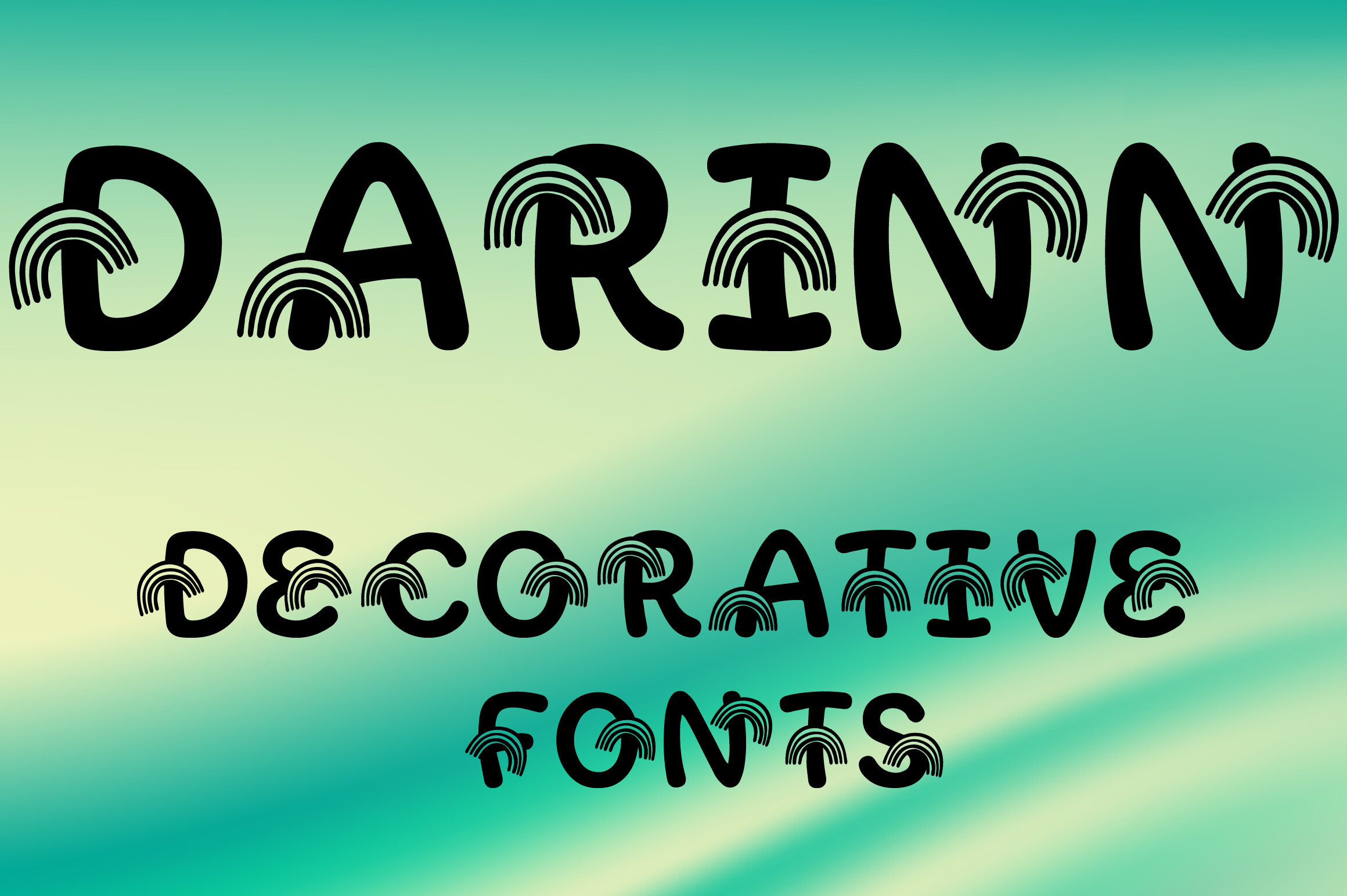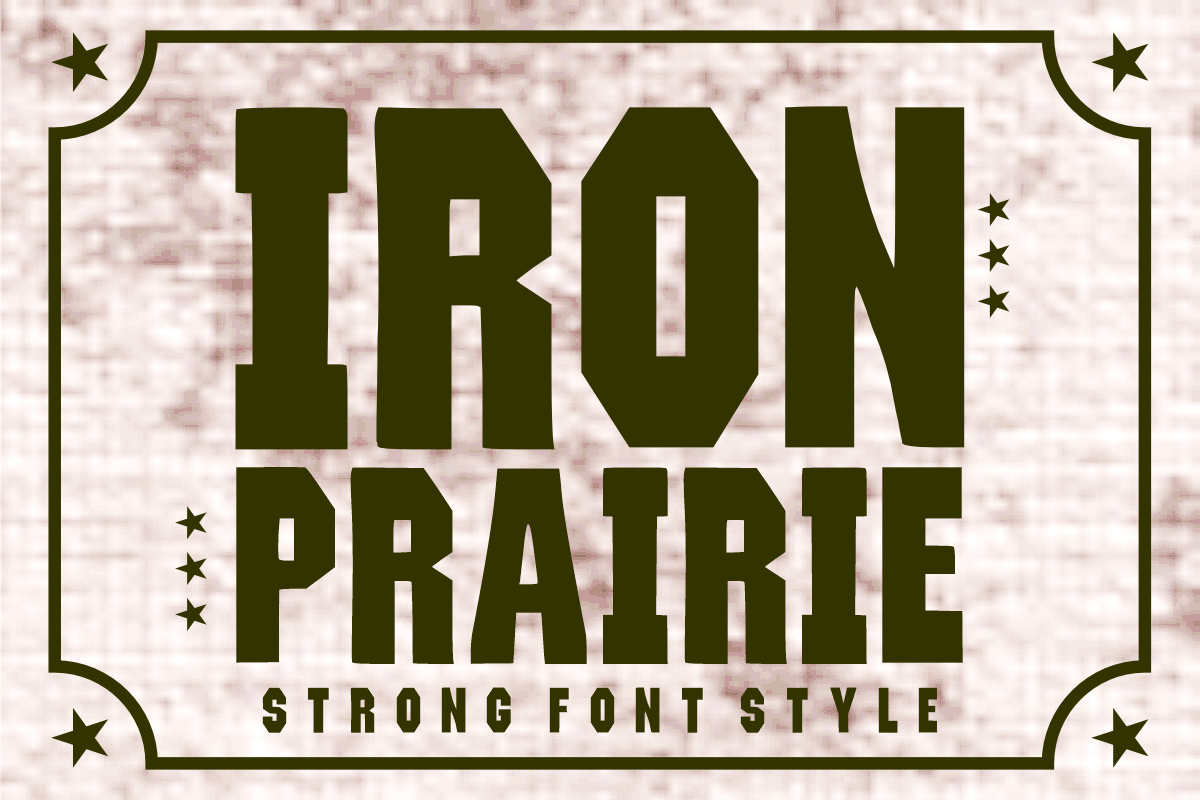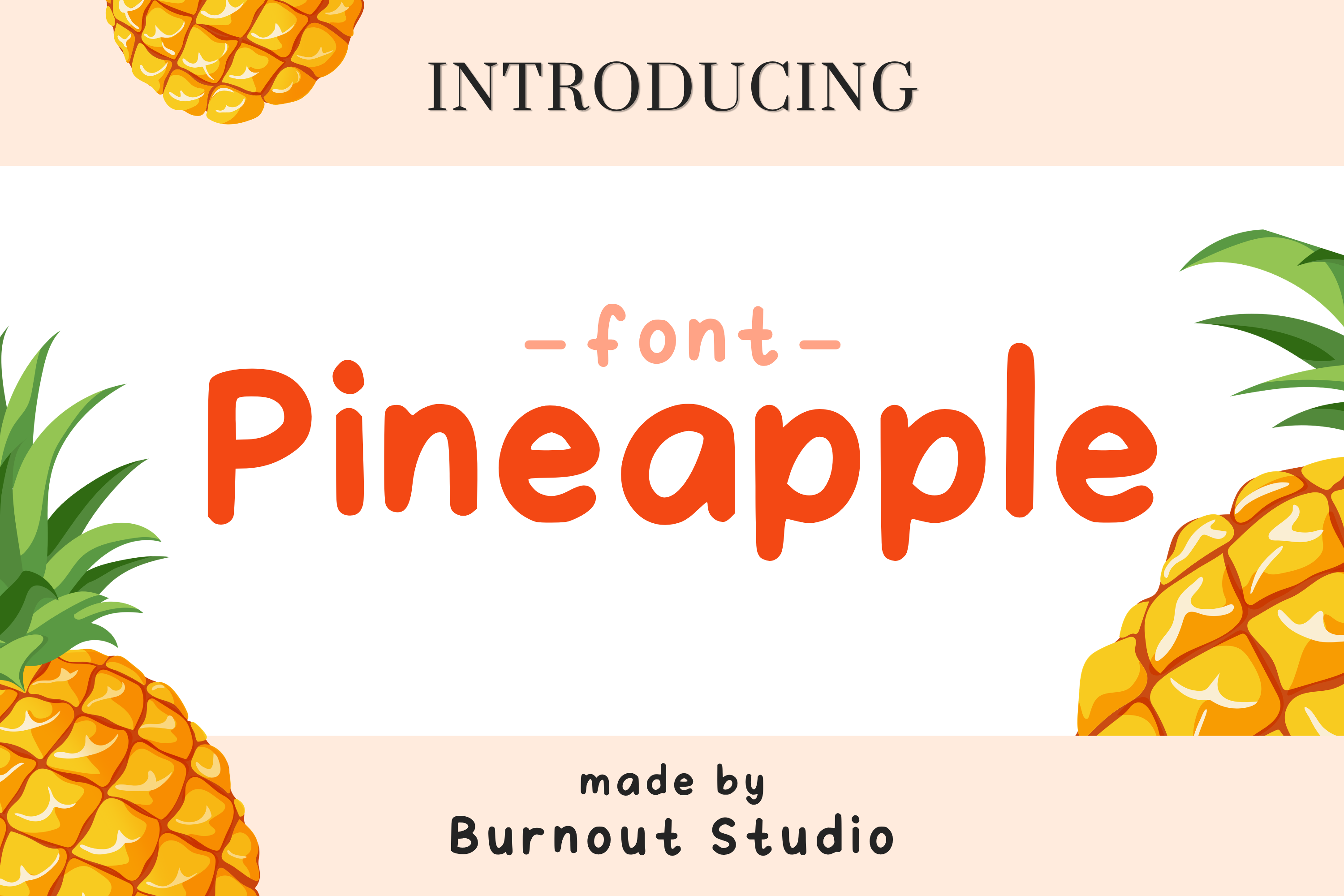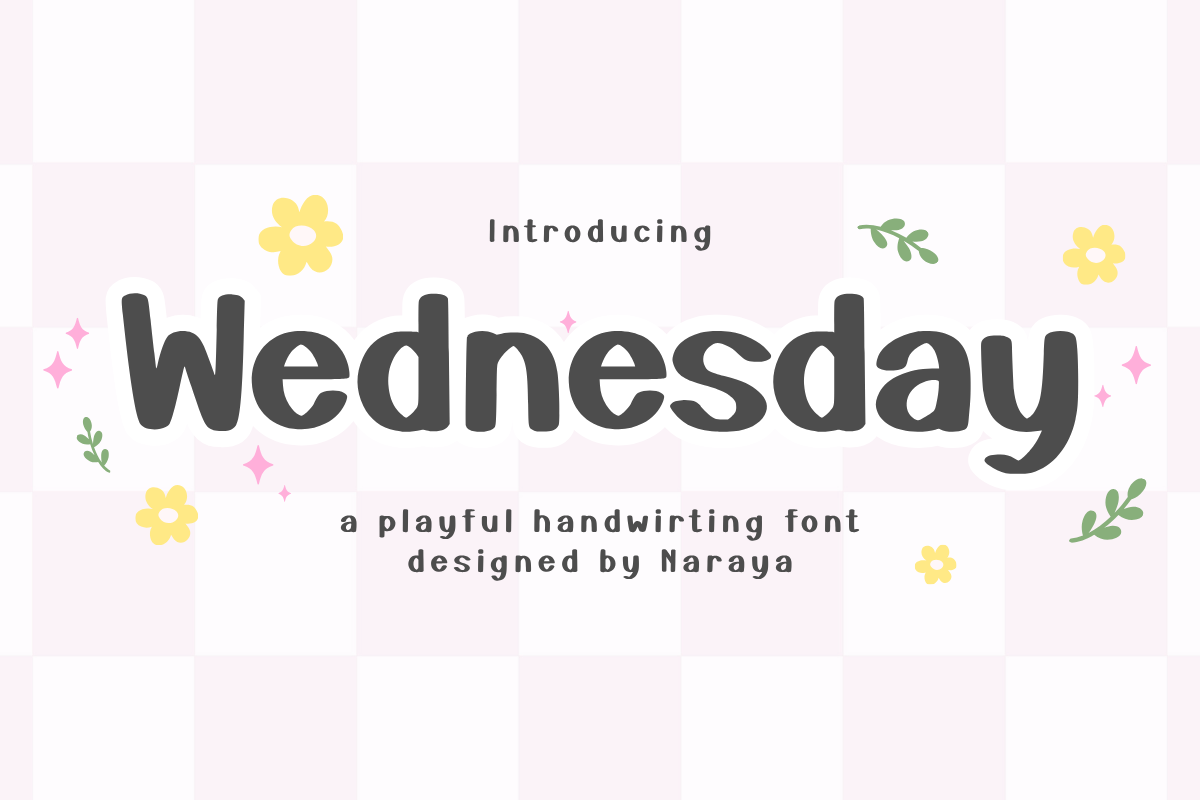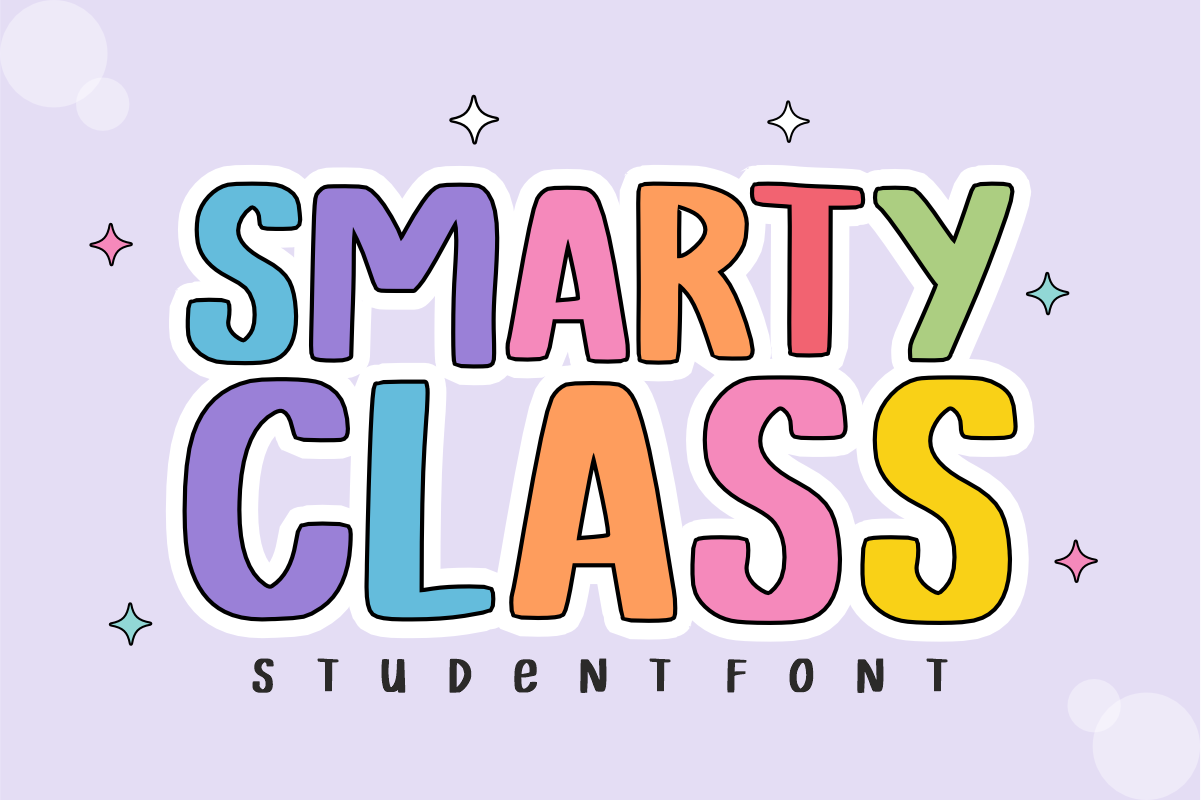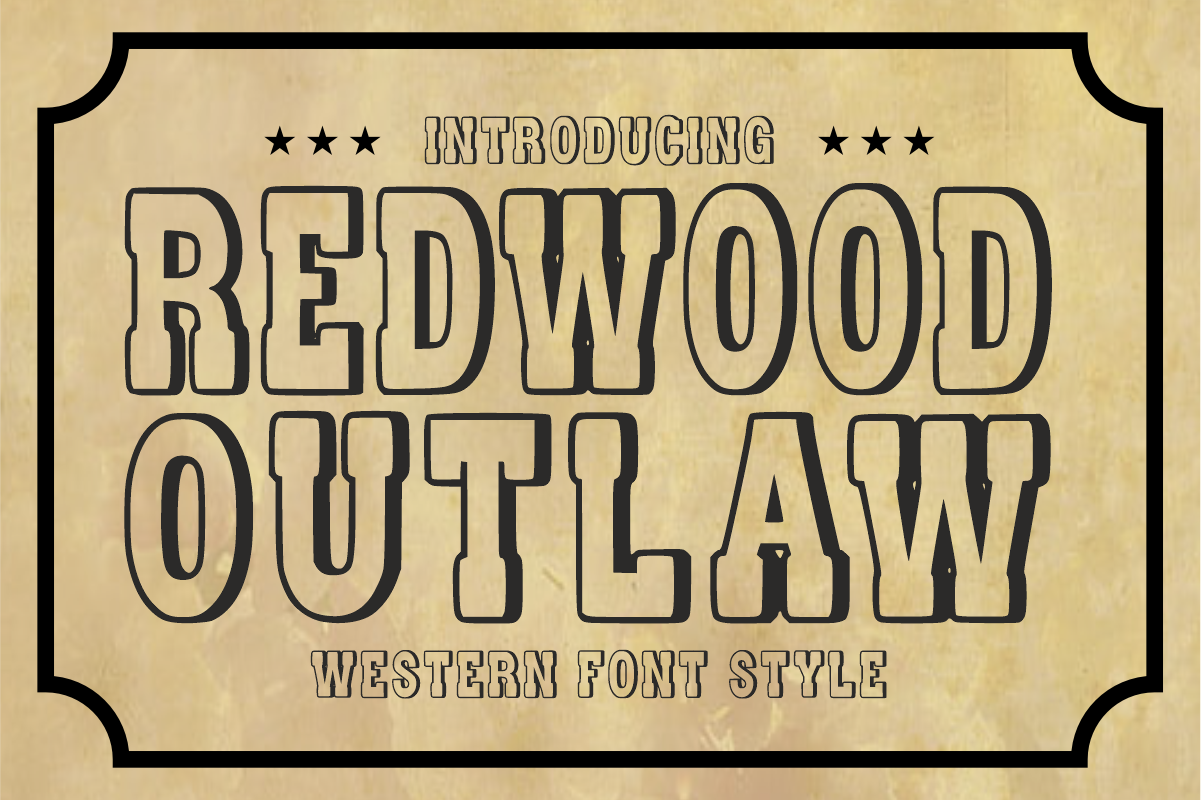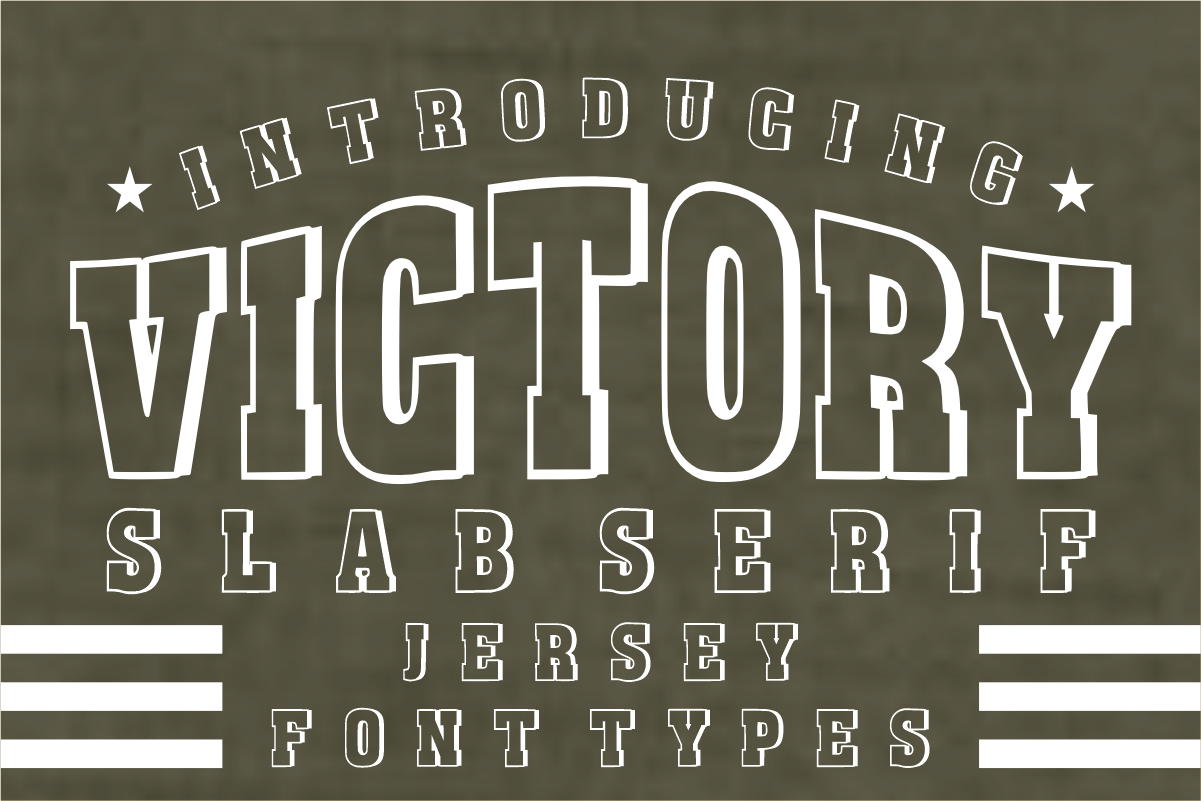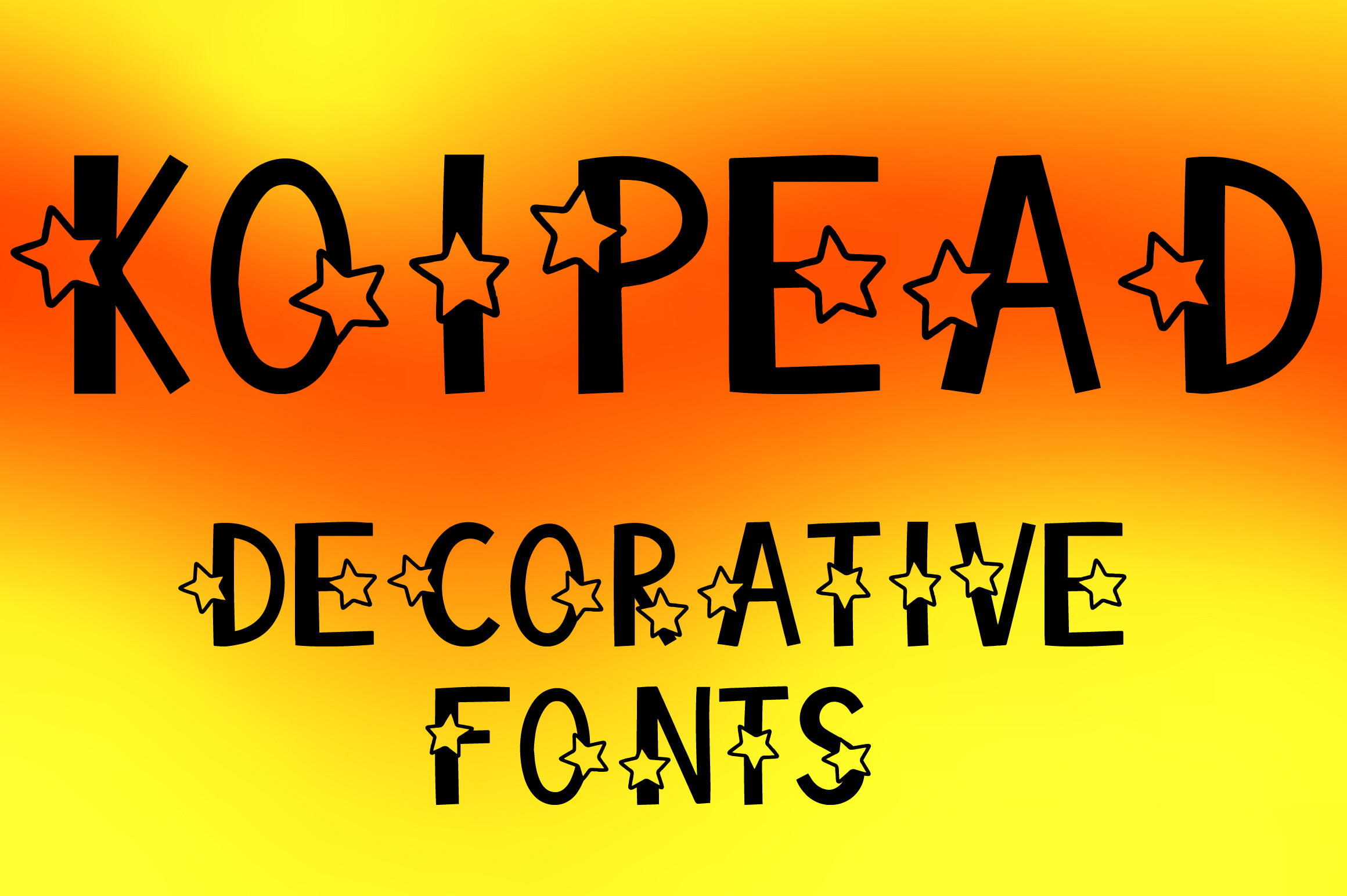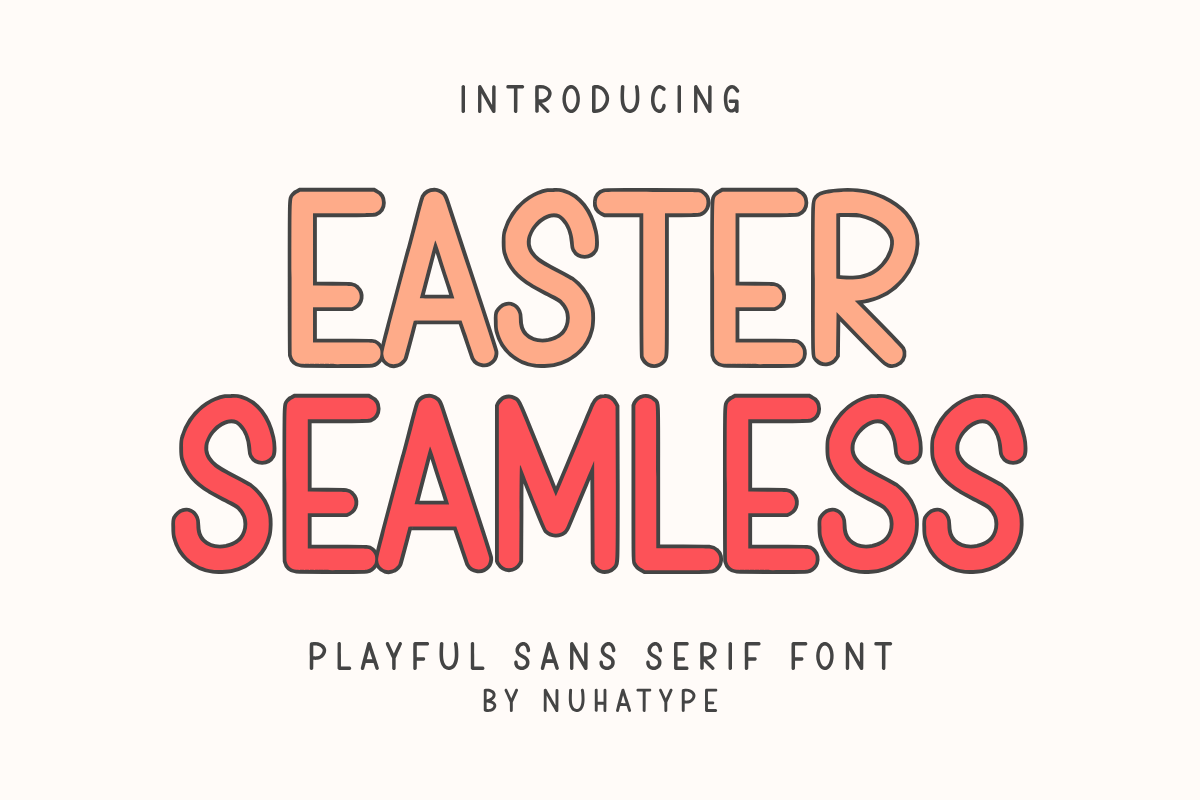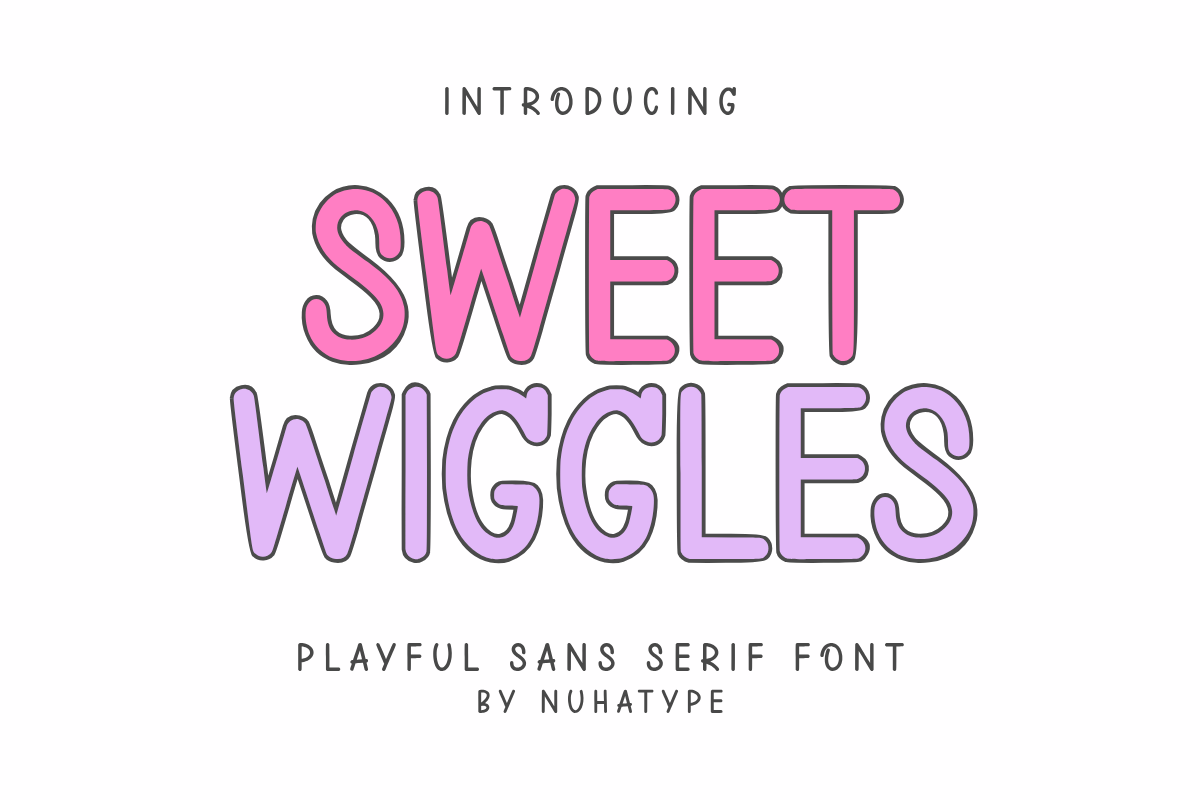
Welcome to Free Fonts Friday! This week, we bring you an exciting selection of fonts that are available for free and can be used for commercial purposes. Whether you’re looking for playful handwriting styles like 'Wednesday' and 'Pineapple', or bold display fonts like 'Iron Prairie' and 'Victory', this collection has something for everyone. Enhance your designs with the whimsical charm of 'Darinn', the rustic touch of 'Redwood Outlaw', or the minimalist elegance of 'Easter Seamless'. Dive into our curated list and find the perfect font to elevate your projects!
Darinn
DARINN is a vibrant decorative font that brings a playful touch to your designs. With uppercase letters and numbers, it's inspired by colorful rainbow elements, making it ideal for a variety of creative projects such as logos, branding, invitations, and social media graphics. The font's versatile style adds a cheerful vibe to children's projects and more, helping you create visually appealing and joyful designs effortlessly. Whether you're crafting for personal or commercial use, DARINN will elevate your work with its bright and fun characteristics.
Iron Prairie
Iron Prairie is a bold vintage font that captures the essence of the wild west with its strong, blocky shapes. Combining elements of industrial design and rustic charm, this font is perfect for creating eye-catching logos, rustic branding, or outdoor adventure signs. Its clean lines and robust structure make it an ideal choice for projects that demand a touch of ruggedness and authenticity. Whether you're designing varsity-style apparel or unique promotional material, Iron Prairie adds a timeless quality and professional flair to any project.
Pineapple
Pineapple is a delightful handwriting font that adds warmth and personality to your creative endeavors. Each character is carefully hand-drawn to capture a natural flow, making it perfect for casual, modern designs. This font shines in projects like custom merchandise, digital planners, and stationery, delivering charming legibility that feels personal and inviting. Ideal for crafters and designers alike, Pineapple infuses your work with a sweet, relaxed vibe, making it a versatile choice for any project that requires a touch of authenticity and creativity.
Wednesday
Wednesday is a charming handwriting font that exudes playfulness and creativity. It is ideal for a wide range of applications, from Cricut projects to social media graphics. Perfect for creating logos, stickers, and planners, this font adds a personal touch to any design, making it stand out. The playful nature of Wednesday invites engagement, making it a wonderful choice for projects that aim to connect with audiences through a friendly and approachable style. Let your creations shine with the whimsical energy of Wednesday.
Smarty Class
Smarty Class is an energetic and playful font that embodies the spirit of learning. With its bubbly and rounded letters, it's perfect for school-themed projects, educational materials, and fun designs. This versatile font is easy to read, making it an excellent choice for teachers, crafters, and designers. Whether you’re working on worksheets, stickers, or posters, Smarty Class brings a cheerful and welcoming vibe to your work. Its bold, chunky style ensures that your message stands out, making it ideal for projects aimed at engaging and inspiring audiences.
Redwood Outlaw
Redwood Outlaw is a bold display font that captures the adventurous spirit of the wild west. With its clean, structural letterforms and vintage charm, this font is perfect for creating unique logos, rustic merchandise, or retro-themed invitations. Its eye-catching design ensures that your projects will stand out, while its smooth lines make it easy to work with for both digital and physical creations. Whether you're crafting rodeo apparel or designing promotional materials, Redwood Outlaw adds a friendly yet daring touch to your work, embodying the true essence of frontier adventure.
Victory
Victory is a commanding font that embodies strength and achievement. Its bold slab serifs and classic jersey aesthetic make it a fantastic choice for sports-related designs, promotional materials, and collegiate branding. This high-impact font ensures clarity and authority, helping your message resonate with audiences. Perfect for local sports teams or trendy streetwear, Victory is optimized for sharp printing and easy cutting, making it a must-have for crafters and designers. Elevate your projects with the confident energy of Victory, ensuring that your designs not only catch the eye but also leave a lasting impression.
Koipead
Koipead is a whimsical decorative font inspired by sparkling star elements. It features uppercase letters and numbers, making it a versatile choice for various creative projects, including branding, invitations, and children's designs. This playful font adds a magical touch to your creations and ensures a bright, joyful aesthetic. Perfect for social media graphics and packaging, Koipead brings a sense of wonder and creativity to your work, making it suitable for any occasion where a fun and vibrant style is desired.
Easter Seamless
Easter Seamless is a minimalist sans serif font that captures the essence of modern handwriting. Its thin lines and elegant design lend a sophisticated touch to your projects. Perfect for planners, journals, and custom crafts, this font excels in creating inspiring quotes and labels. Whether you're crafting for home décor or personalized gifts, Easter Seamless adds a refined simplicity that transforms ordinary items into elegant artistic expressions. Its versatility and charm make it a go-to choice for anyone looking to elevate their creative endeavors with a stylish flair.